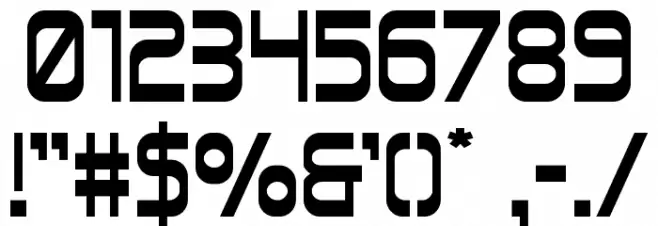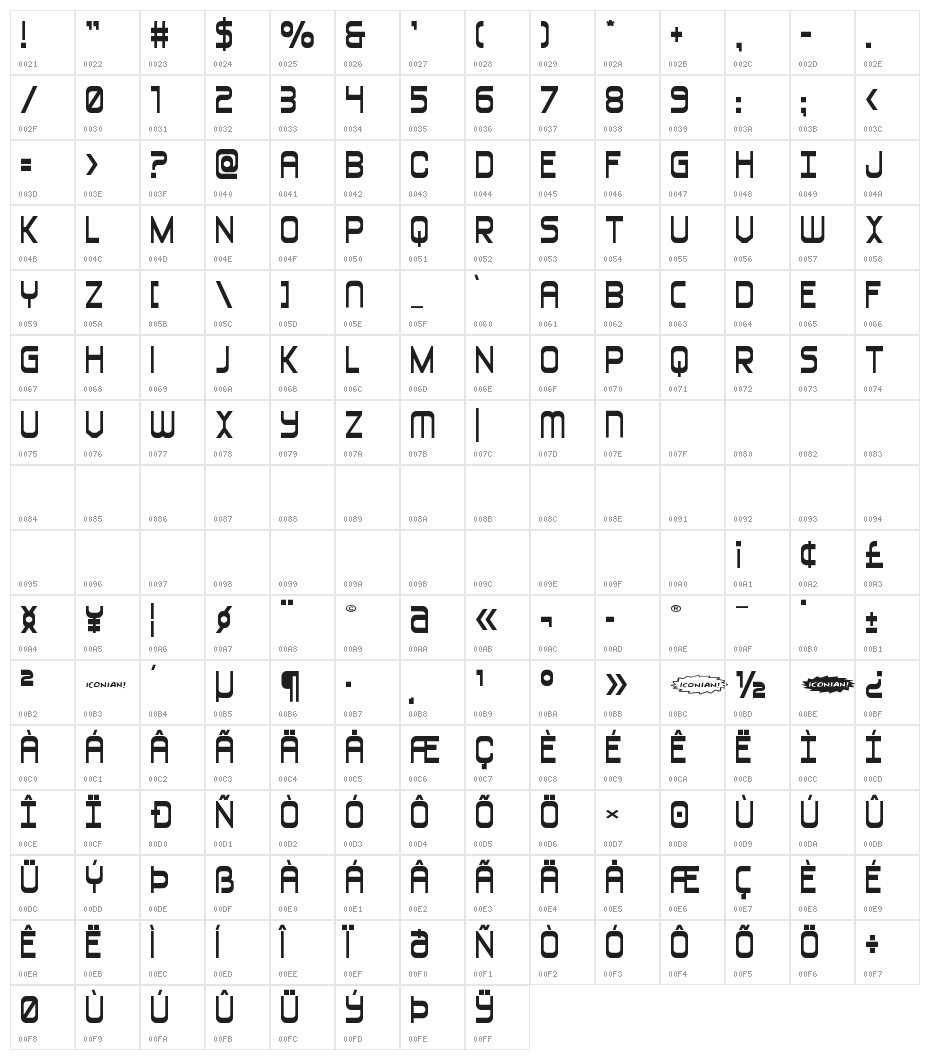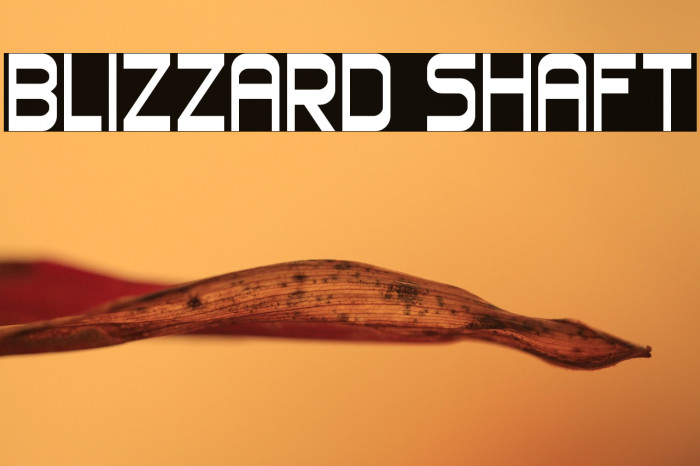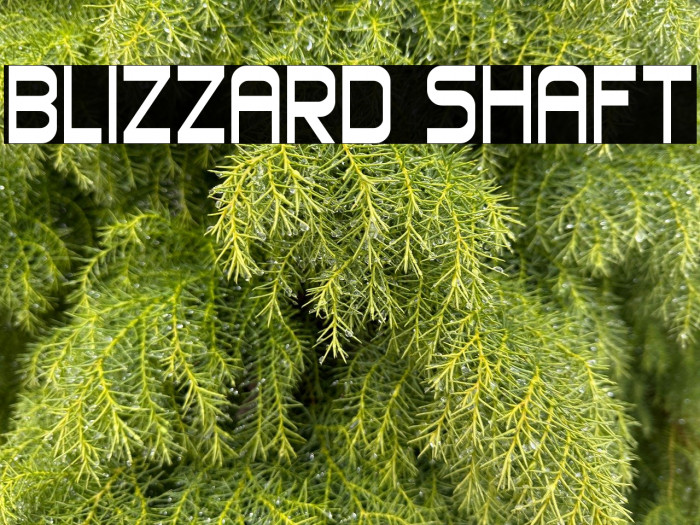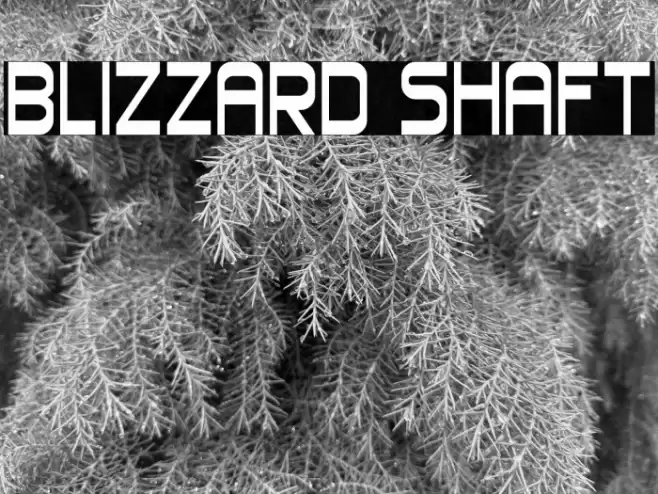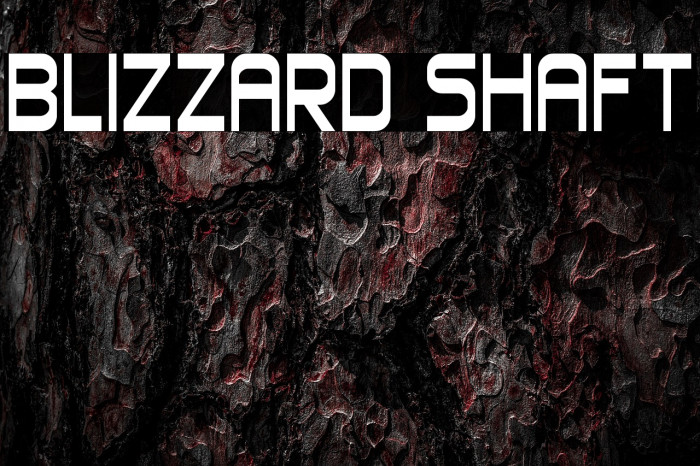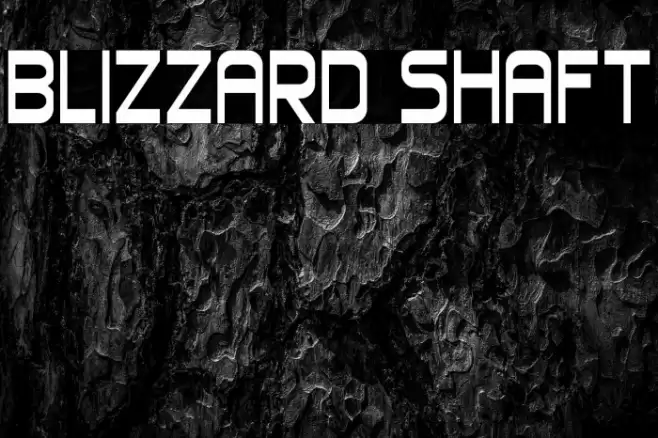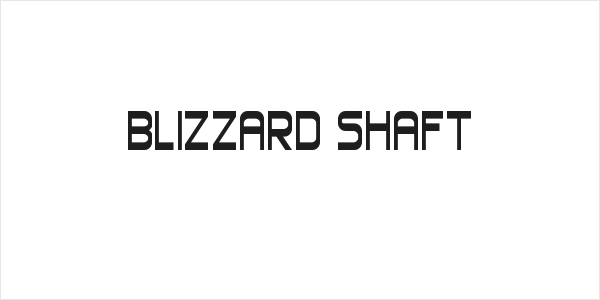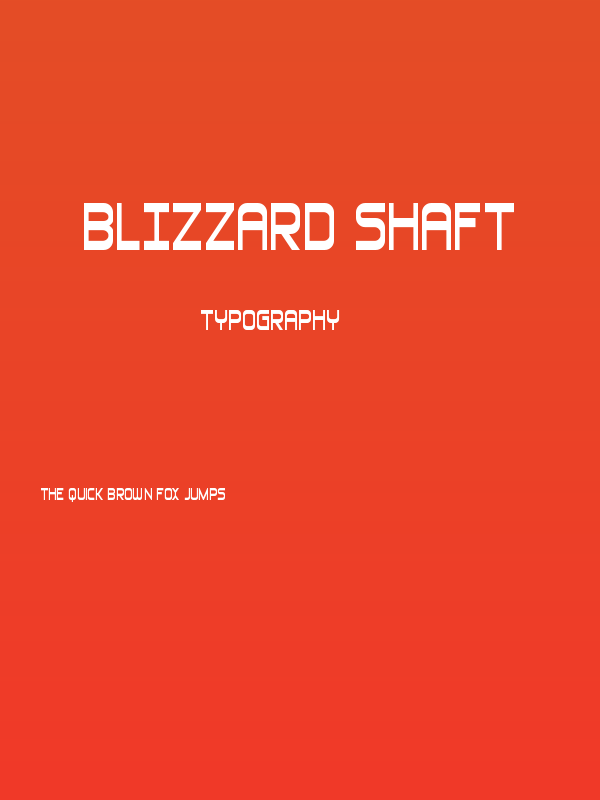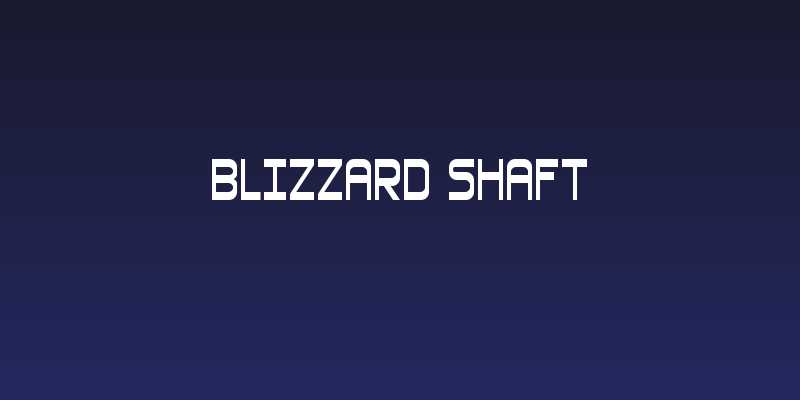
Blizzard Shaft Font
Blizzard Shaft Description
This font features a bold, geometric design with a modern and futuristic aesthetic. The characters are constructed with clean, straight lines and sharp angles, giving it a structured and technical appearance. The uppercase letters are uniform in height, while the lowercase letters maintain a consistent style, enhancing readability. The numerals are distinct and align well with the overall design, making them suitable for digital displays. Special characters are crafted to match the font's angular style, providing a cohesive look across all glyphs. The font's design is versatile, making it ideal for technology-related projects, branding, and headlines that require a contemporary and impactful presence.
| Use Case | Headlines, Logos, Digital displays |
| Proposed Projects | Ideal for technology branding, digital interfaces, and modern advertising. |